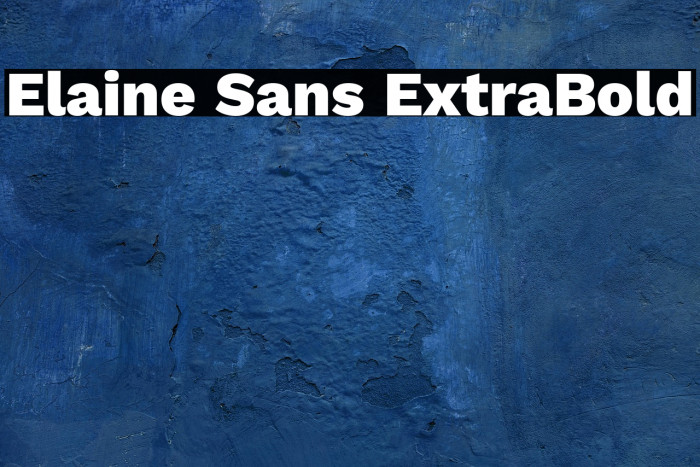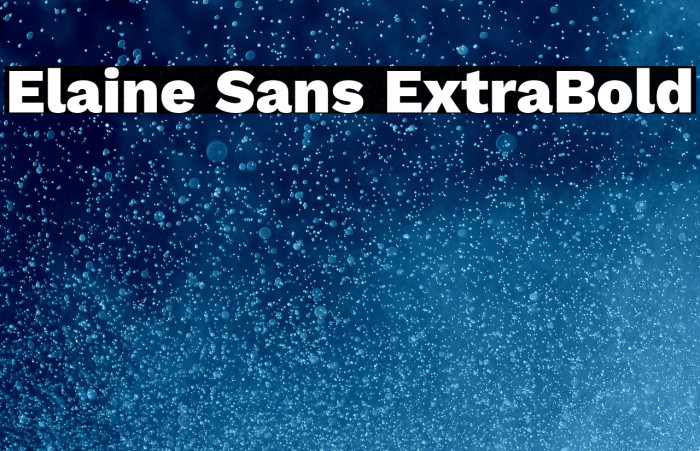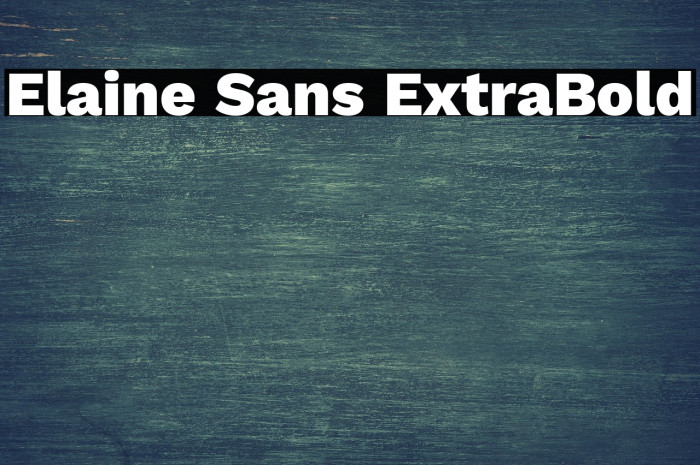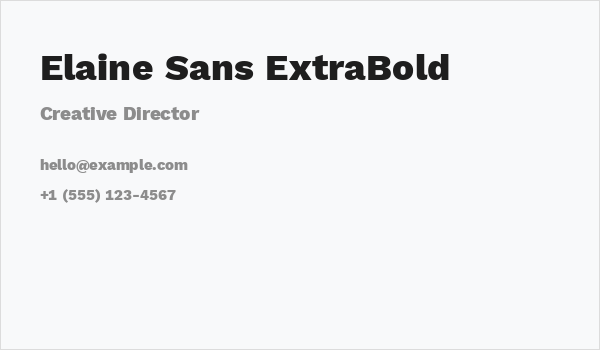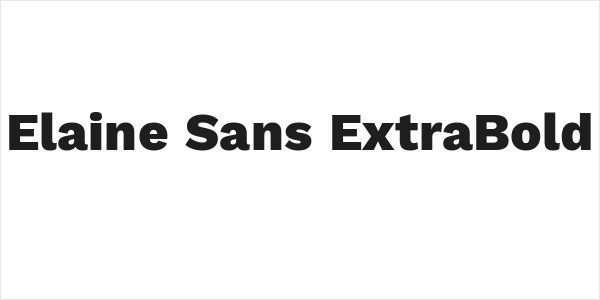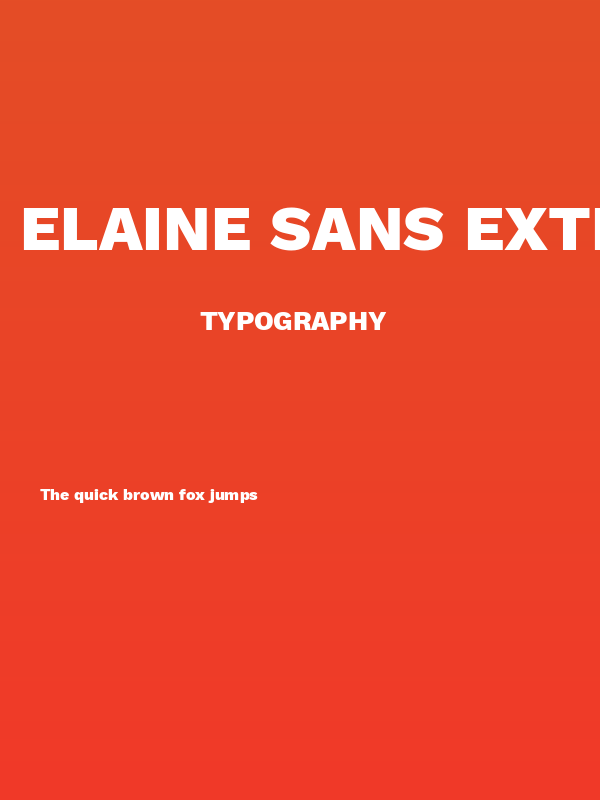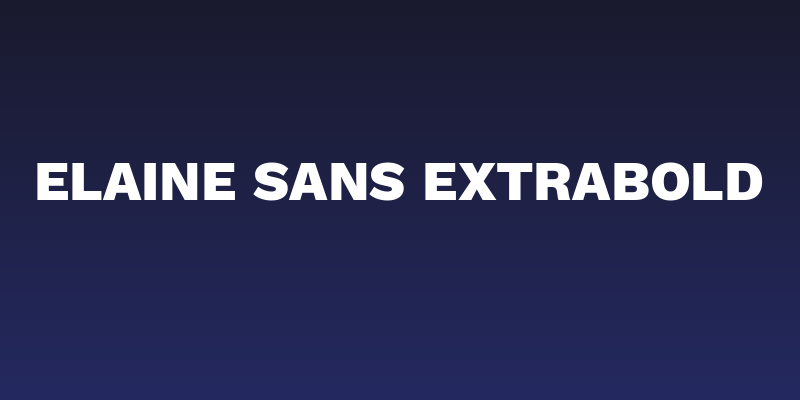
Elaine Sans ExtraBold Font
Elaine Sans ExtraBold Description
This typeface is characterized by its bold and robust appearance, featuring thick strokes and a strong presence. The uppercase letters are uniform in height, providing a sense of stability and balance. The lowercase letters maintain a consistent weight, ensuring readability and clarity. The numerals are bold and easily distinguishable, making them suitable for various applications. Special characters are well-defined, adding versatility to the font's use. Overall, this typeface exudes confidence and modernity, making it ideal for impactful designs.
| Use Case | Headlines, Logos, Advertising |
| Proposed Projects | Ideal for branding, advertising, headlines, and any project requiring a strong visual impact. |